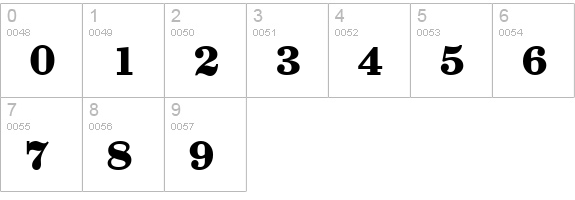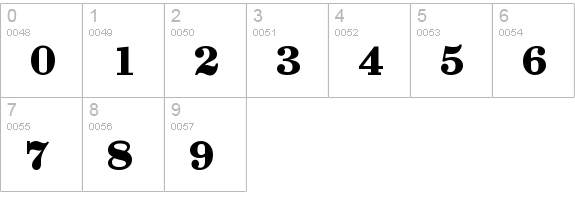
WichitaSerial-Xbold-Regular is the standard, neutral variant in the WichitaSerial typeface family \xE2\x80\x94 well suited to general body text, paragraphs, and standard typographic work.
WichitaSerial-Xbold-Regular is a striking and versatile font that exudes modern elegance and sophistication. This font features bold, clear lines that make it perfect for making a statement in any design project. Whether you're creating a bold headline or adding a touch of flair to your branding materials, WichitaSerial-Xbold-Regular is sure to make an impact. The best part? WichitaSerial-Xbold-Regular is completely free to download at FontsMarket.com. This means you can elevate your designs with this stunning font without breaking the bank. So go ahead and unleash your creativity with WichitaSerial-Xbold-Regular, the perfect choice for those looking to make a bold statement with their typography.